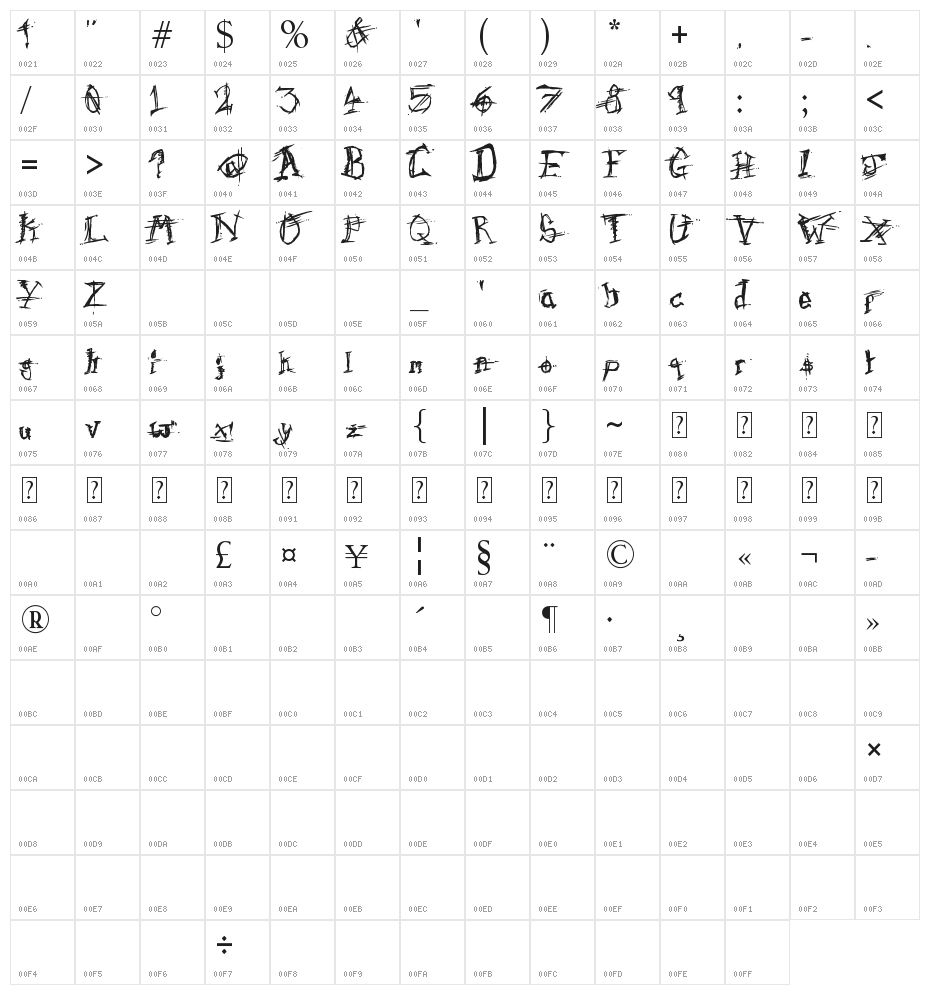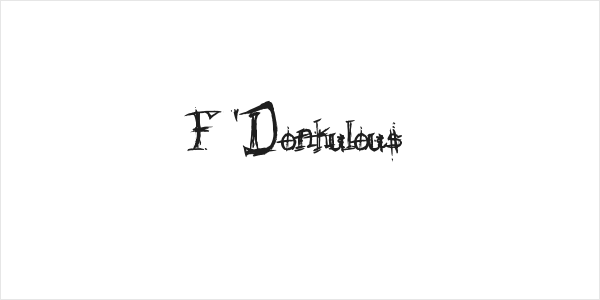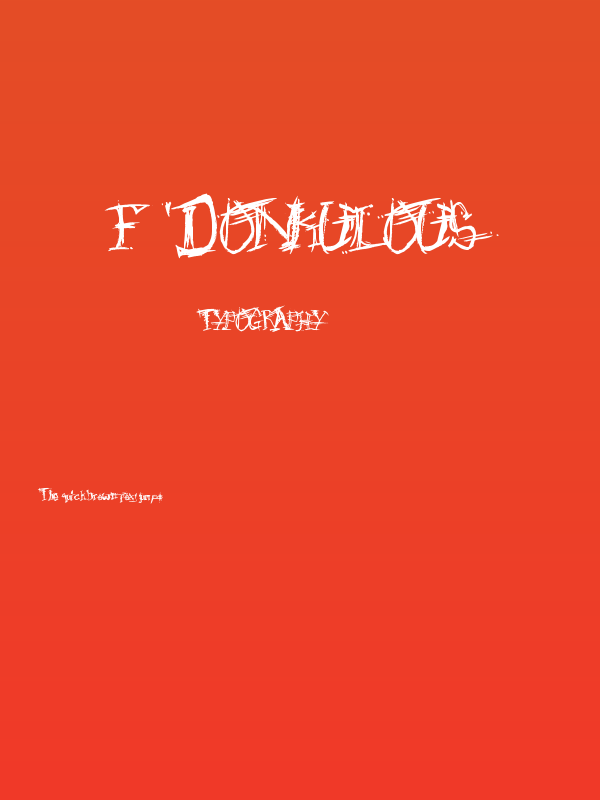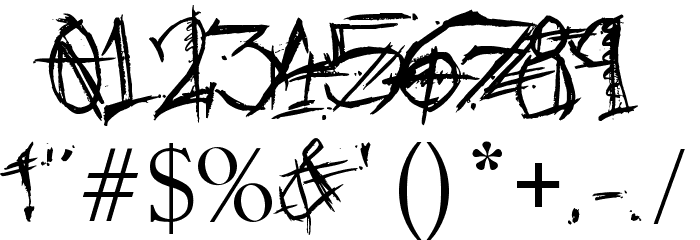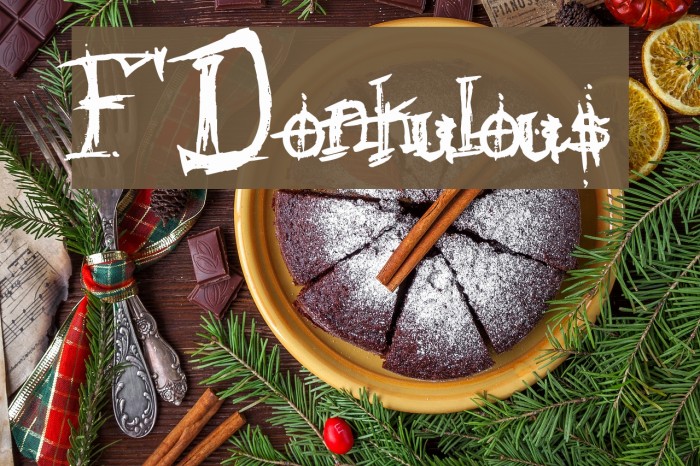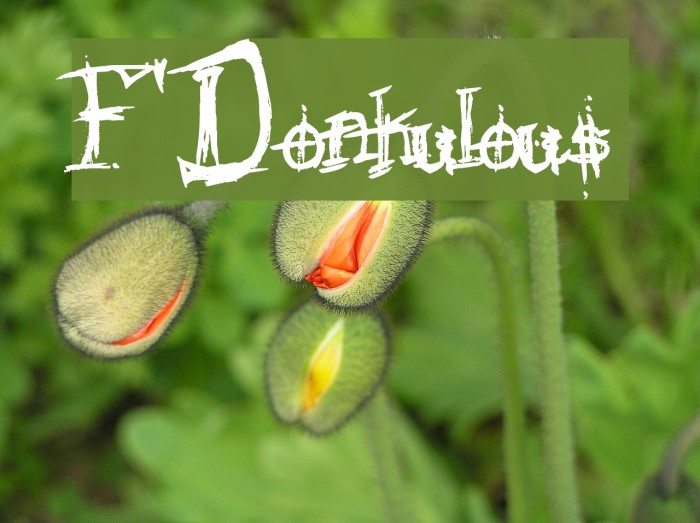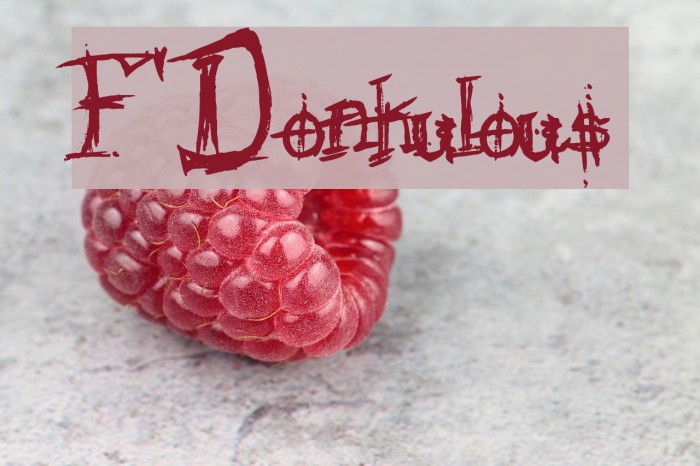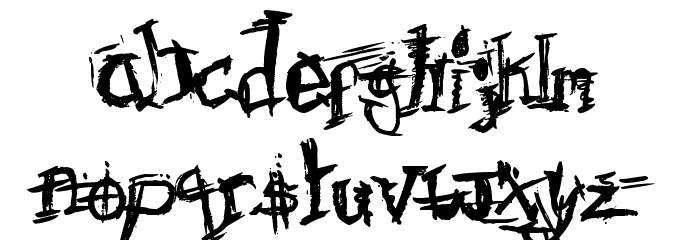
F'Donkulous Font
F'Donkulous Description
This font features a highly distressed and chaotic style, characterized by jagged edges and irregular strokes. The letters appear as if they have been scratched or hastily drawn, giving a sense of urgency and raw energy. The uppercase and lowercase letters maintain a consistent level of distortion, with each character exhibiting unique variations in line thickness and form. Numbers and special characters follow the same erratic design, enhancing the overall grunge aesthetic. This font is ideal for projects that require a bold, rebellious look, such as music album covers, edgy posters, or alternative fashion branding.
| Overall Style | Grunge, Rebellious |
| Use Case | Logos, Headlines |
| Proposed Projects | Music album covers, edgy posters, alternative fashion branding. |